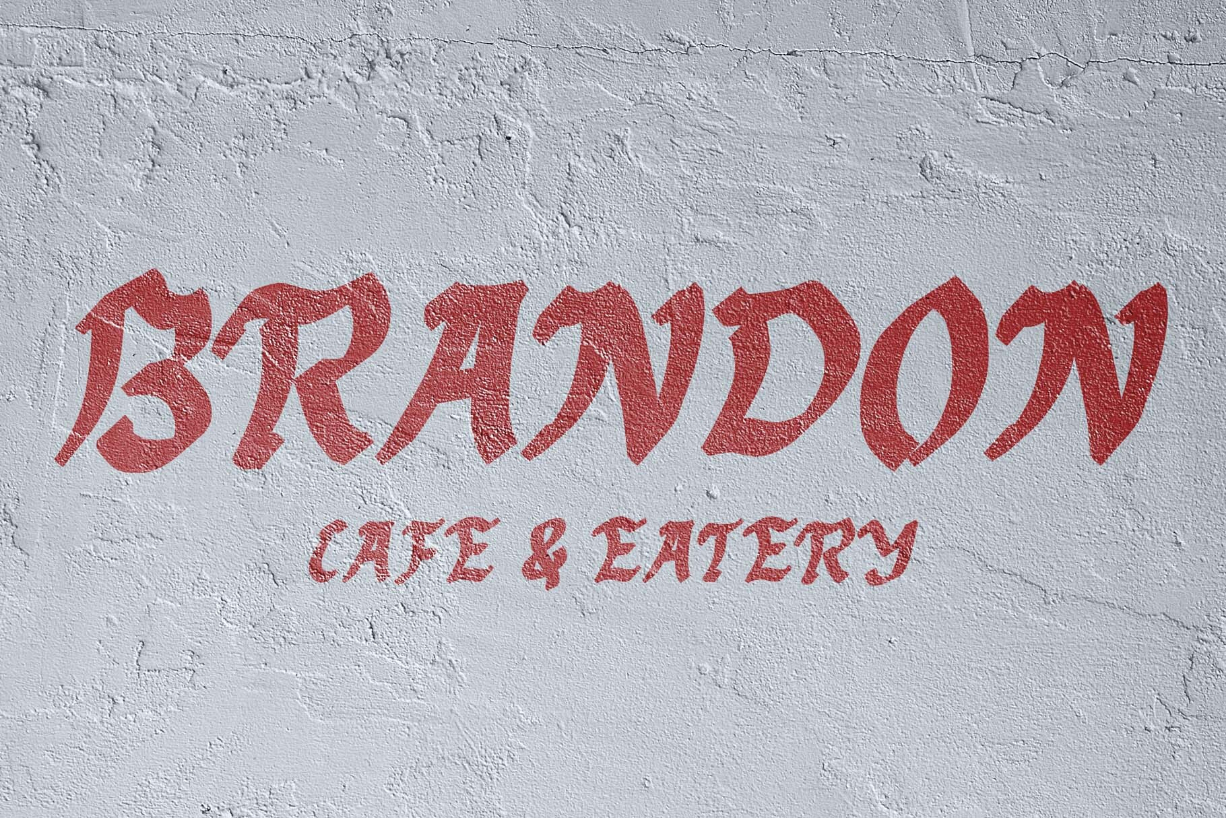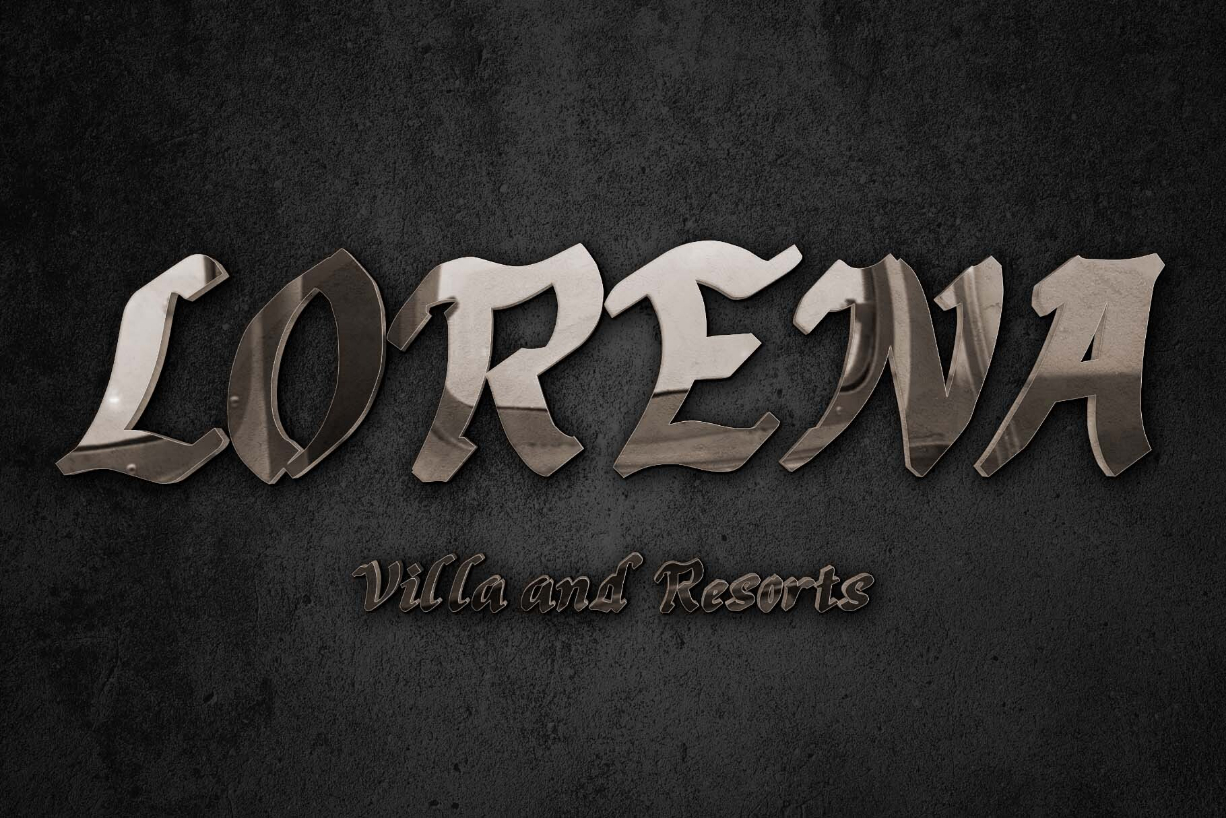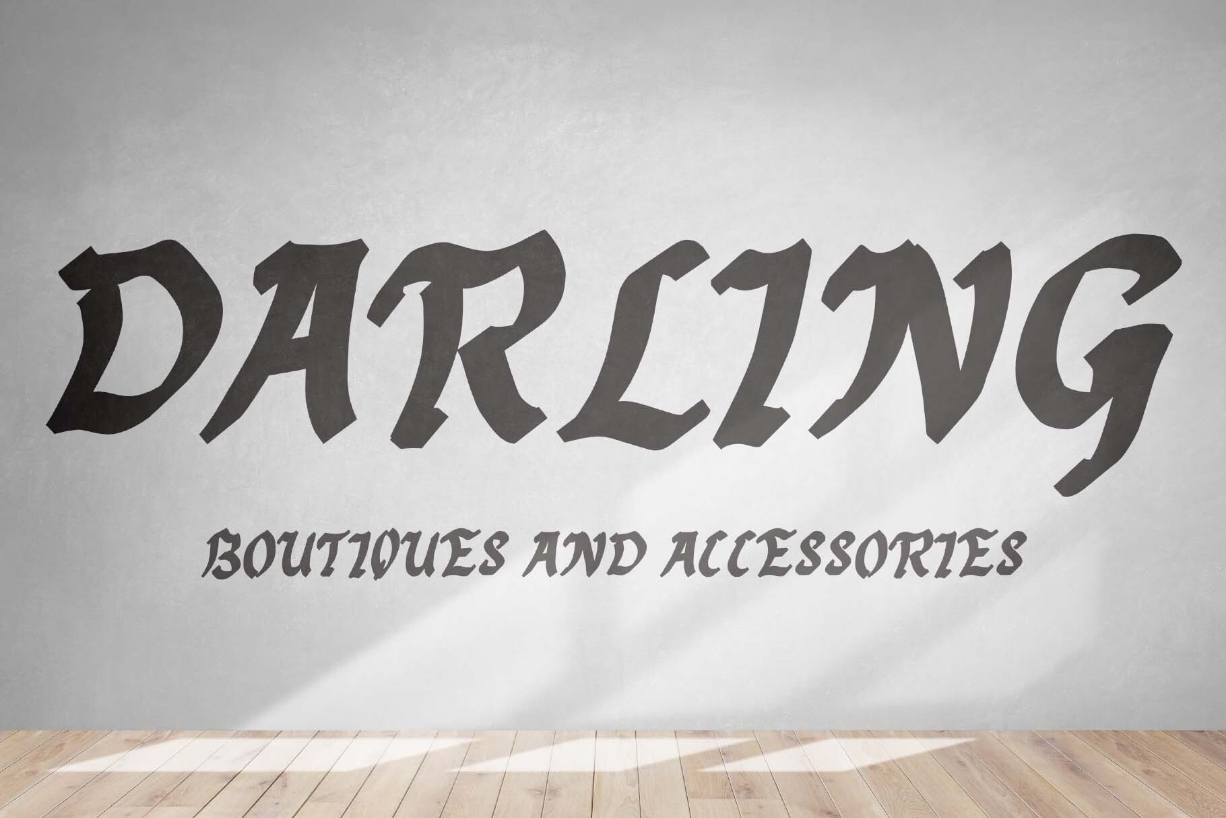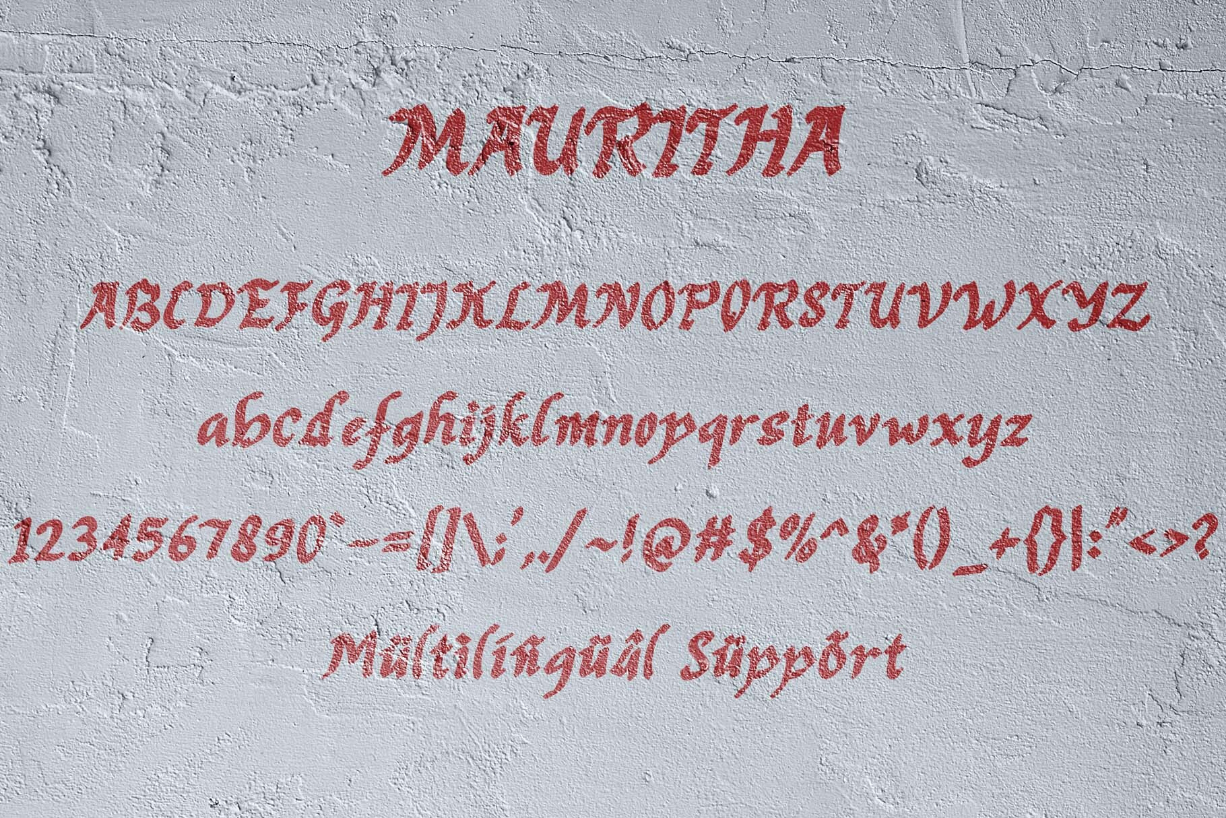
About Mauritha Font
Mauritha is an elegant and professional blackletter font. This font is equipped with uppercase, lowercase, numerals, punctuation, and multilingual support. Very suitable for logos, banners, posters, tattoos, branding, stickers, Christmas, Halloween, Valentine’s, and so much more.